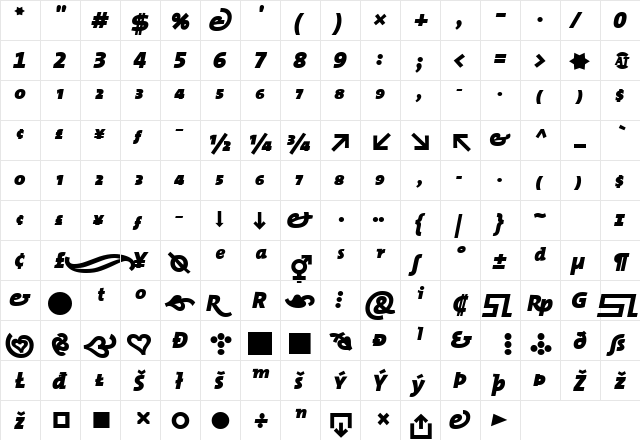
TheMixBlack-ExpertItalic Regular Font Preview
TheMixBlack-ExpertItalic Regular
TheMixBlack-ExpertItalic Regular Font Details
Design Context for TheMixBlack-ExpertItalic Typeface
TheMixBlack-ExpertItalic is a composed and adaptable typeface that performs quietly and consistently across a wide range of design contexts. The slanted form adds forward momentum and visual energy.
Pro Tip: Use TheMixBlack-ExpertItalic for emphasis, pull quotes, and subheadings where its slanted energy can add rhythm to the layout.